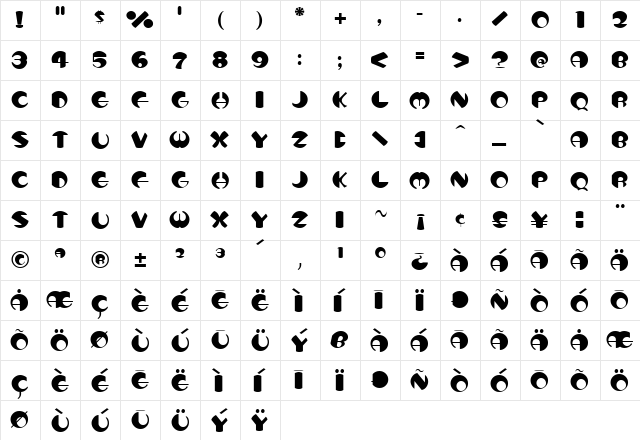
Totem Regular
Design Context for Totem Typeface
Totem is a composed and adaptable typeface that performs quietly and consistently across a wide range of design contexts.